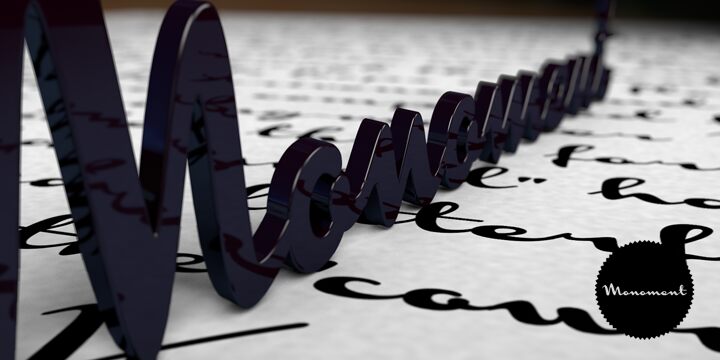
Monoment by Mans Greback is a free calligraphic script with broad, looping capitals and a long, continuous flow. Its dramatic stroke changes are unmistakable.
Sweeping curves can echo ribbons or drawn flourishes in fashion photography and event graphics. The lettering also suits high-end fragrance packaging and music artwork, where its oversized forms can become part of the image rather than a quiet caption. For boutique branding, those linked strokes offer a recognizable signature across labels and printed promotional pieces.